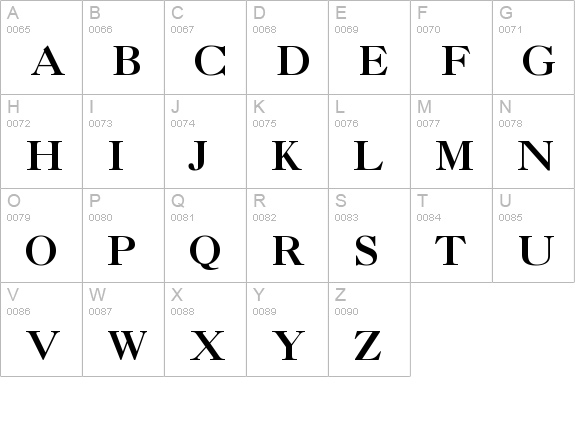
QTCaslan Bold Font Details
QTCaslan Bold is a strong, high-contrast variant in the QTCaslan typeface family \xE2\x80\x94 well suited to headlines, attention-grabbing titles, and strong calls-to-action.
QTCaslan Bold font is a stunning display typeface that captures attention with its bold and powerful presence. With its strong and thick letterforms, this font exudes confidence and elegance. The bold weight adds a touch of sophistication, making it perfect for headlines, posters, logos, and other design projects that require a strong visual impact. The distinctive features of QTCaslan Bold font make it versatile and suitable for a wide range of applications. Its sharp angles and clean lines give it a modern and contemporary feel, while still maintaining a timeless appeal. The letters are beautifully balanced, ensuring legibility even at smaller sizes. One of the most remarkable aspects of QTCaslan Bold font is that it is available for free. You can easily download it at FontsMarket.com, a reputable website dedicated to providing high-quality fonts. This means that you can enhance your designs with this exceptional typeface without incurring any costs. Whether you are a professional designer or a casual user, QTCaslan Bold font offers a great opportunity to elevate your projects with its bold and striking presence. Its versatility and availability make it an excellent choice for both personal and commercial use. So why wait? Download QTCaslan Bold font today and let your creativity flourish.